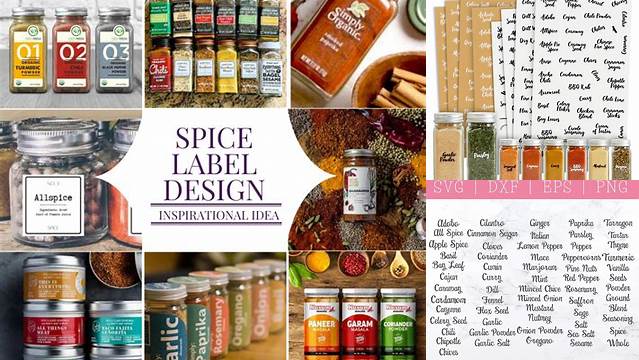
Spice Label Fonts: A Comprehensive Guide
Spice labels aren't just about listing ingredients; they're a crucial part of your brand's identity and can significantly impact sales. The right font can instantly convey your brand's personality, whether it's a rustic, artisanal feel or a modern, minimalist aesthetic. Choosing the best fonts for spice labels involves considering legibility, style, and the overall message you want to communicate. This guide will walk you through the essential aspects of font selection, ensuring your spice labels not only look good but also effectively attract customers and tell your brand's story.
1. Understanding the Role of Typography in Spice Label Design
Guys, let's talk about the unsung hero of great spice labels: typography. It's not just about picking a pretty font; it's about crafting a visual identity that speaks volumes. Think of typography as the voice of your brand. Are you aiming for a classic, home-cooked vibe? A serif font like Garamond or Times New Roman might do the trick. Going for something modern and edgy? A sans-serif font like Helvetica or Futura could be your go-to. Understanding the role of typography is the first step in making your spice labels pop. It's about creating a cohesive design that grabs attention and makes your product stand out on the shelf. Best fonts for spice labels often balance aesthetic appeal with practicality. Legibility is key. No one wants to squint to read what's in the jar. The right font ensures that your brand is accessible and inviting, turning casual browsers into loyal customers. Consider the overall feel you want to evoke. The typeface of your label, the style of your texts should complement the look and feel of your business. The fonts you choose should reflect your brand's story, creating a lasting impression that resonates with your target audience. Remember, a well-chosen font can communicate your brand values and build a strong connection with your customers.
1.1. The Importance of Legibility and Readability
Let's be real, nobody has time to struggle to read a spice label, right? That's why legibility and readability are absolute must-haves when choosing the best fonts for spice labels. Legibility refers to how easy individual characters are to recognize, while readability is about how easily blocks of text can be read. A font might look beautiful, but if it's hard to read, it's a no-go. Focus on fonts that offer clear character shapes, avoiding overly ornate or stylized fonts for body text. Consider the size of the font and the distance at which the label will be viewed. For example, labels on smaller jars might require bolder fonts to ensure readability. Test out your font choices! Print out sample labels and see how they look under different lighting conditions and from various distances. This hands-on approach will help you assess legibility in real-world scenarios. Also, remember that readability can be affected by factors like font size, line spacing, and color contrast. Ensure there's enough contrast between the font and the background. Black text on a white background generally offers the highest readability. Experiment with different font weights (light, regular, bold) to find the perfect balance. Bold fonts are great for headings and key information, while regular or light fonts work well for body text. Prioritize fonts that are both stylish and easy to read. The ultimate goal is to provide clear and concise information that encourages customers to purchase your product.
1.2. Balancing Aesthetics and Functionality in Font Selection
When selecting the best fonts for spice labels, it's a delicate balancing act between aesthetics and functionality. You want a font that looks good and reflects your brand's personality. However, this must be achieved without sacrificing the clarity and usability of the label. Think about the overall design of your label. A playful, handwritten font might work well for a brand selling artisanal spices, while a clean, modern sans-serif font might suit a more contemporary aesthetic. Consider the target audience of your spices. A font that appeals to health-conscious consumers might differ from a font that appeals to gourmet food enthusiasts. Evaluate how the font performs in various contexts. Does it maintain its legibility at smaller sizes? Does it work well with other design elements like images and colors? It's crucial to avoid fonts that are too elaborate or complex, as these can be difficult to read, especially in small font sizes. Focus on fonts with clean lines and distinct characters. This ensures readability, no matter the size or distance from which the label is viewed. Remember, the font should support the overall design, not overpower it. The best fonts for spice labels are those that complement the brand's identity, communicating its message in a way that is both visually appealing and highly functional. A well-chosen font reflects your brand's personality, making your product more attractive and memorable.
2. Top Font Styles for Spice Labels
Selecting the best fonts for spice labels involves a careful consideration of various font styles. Each style conveys a unique message and can influence how customers perceive your brand. Let's dive into some popular font styles suitable for spice labels.
2.1. Serif Fonts: Classic and Trustworthy Choices
Serif fonts are fonts with small decorative strokes at the end of each letter. They are known for their classic and traditional feel, making them a popular choice for brands aiming to convey trust and reliability. Examples include Times New Roman, Garamond, and Georgia. These fonts can bring a touch of elegance and sophistication to your spice labels. Best fonts for spice labels in the serif category often evoke a sense of history and tradition. They are perfect for brands that emphasize quality and heritage, attracting customers who appreciate classic designs. Serif fonts often work well for the main text on your labels. They are typically easy to read, especially in longer blocks of text. This is crucial for providing detailed information about the spices, such as ingredients and usage instructions. The serifs themselves help guide the eye across the page. This enhances readability and ensures that your message is easily understood. However, avoid overly decorative serif fonts if legibility is a primary concern. Simpler, cleaner serif fonts are usually the best choice. In addition, consider pairing a serif font with a sans-serif font for headings or subheadings. This creates visual interest and hierarchy. The serif fonts offer a balanced and professional look, making them ideal for brands looking to build trust and credibility. The right serif font can create a strong connection with customers who value quality and tradition, which translates into increased customer loyalty and sales.
2.2. Sans-Serif Fonts: Modern and Clean Designs
Sans-serif fonts are fonts without the small decorative strokes found in serif fonts. They offer a modern, clean, and minimalist aesthetic. They are perfect for brands seeking a contemporary look. Popular choices include Helvetica, Arial, and Futura. These fonts project a sense of simplicity and professionalism. Best fonts for spice labels that embrace sans-serif styles often aim to appear clean and approachable, which resonates with consumers seeking straightforward and clear product information. Sans-serif fonts are highly versatile, making them suitable for a wide range of brands. They're excellent for headings, subheadings, and any text that needs to stand out. Their clean lines ensure excellent readability, even at smaller sizes. This is particularly important for spice labels where space may be limited. Consider using bold or semi-bold sans-serif fonts for ingredient lists. This helps draw attention to the most important information. The simplicity of sans-serif fonts makes them ideal for minimalist designs. They allow other design elements, such as colors and images, to shine. However, ensure your sans-serif choice is not overly plain. This can make your brand seem generic. Choose a font with a unique character that reflects your brand's personality. By leveraging the strengths of these fonts, spice labels can communicate professionalism and modernity. They appeal to customers who value a clean and straightforward design. This leads to higher brand visibility and increased sales.
2.3. Script Fonts: Adding a Touch of Elegance and Personality
Script fonts mimic handwriting and are a great way to inject personality and elegance into your spice labels. These fonts add a touch of sophistication and can make your products feel more artisanal and high-end. Popular options include Brush Script and Lobster. If your brand embraces an artistic or handcrafted identity, script fonts can be a fantastic choice. Best fonts for spice labels that employ script styles often aim to create an intimate, personal connection with customers. This makes them ideal for brands that prioritize storytelling and authenticity. Use script fonts sparingly. They work best for titles, product names, or taglines. Avoid using them for body text, as they can be difficult to read in large blocks. Ensure legibility by choosing a script font with clear letterforms. This will ensure that your customers don't struggle to read the information. Keep in mind that script fonts can be visually striking. They may not always pair well with other font styles, especially if the contrast is too strong. Consider pairing a script font with a simple, clean sans-serif font for a balanced design. Furthermore, choose the right script font that resonates with your brand's identity. A delicate script font might suit a brand specializing in gourmet spices, while a bolder script font could suit a brand offering unique blends. Script fonts can elevate your brand, setting you apart from the competition. They make your labels more memorable and appealing to customers who are looking for quality and style.
2.4. Display Fonts: Bold Statements and Creative Designs
Display fonts are designed to grab attention and are ideal for making a bold statement on your spice labels. They often have unique and eye-catching designs, setting your product apart from the competition. Examples include Bebas Neue and Impact. Display fonts can add a creative flair to your labels and make your brand memorable. Best fonts for spice labels that utilize display fonts aim to create a strong visual impact. They are particularly effective for brands looking to showcase personality and creativity. However, use display fonts strategically. They are best suited for short, impactful text, such as brand names, product names, or key ingredients. Display fonts might not be suitable for body text or long descriptions, as they can be difficult to read in extended paragraphs. Choose a display font that aligns with your brand's overall aesthetic. If your brand is playful and fun, a bold and whimsical font might work well. If you want a more serious and sophisticated vibe, go for a more elegant display font. Make sure the display font you select is legible. You should ensure that the font is easy to read at different sizes and viewing distances. When used correctly, display fonts can enhance your spice labels, creating a strong visual identity. This will attract customers and highlight your brand's unique personality. The font adds a creative and visually appealing aspect to your labels, enhancing your product's overall appeal and increasing its appeal to the target audience.
3. Font Combinations: Creating a Harmonious Design
Mixing and matching fonts can create a visually appealing and dynamic design for your spice labels. The key is to find the right balance and ensure that the fonts complement each other. Proper font pairings will create a cohesive and readable label. Let's get into it. Best fonts for spice labels are often a mix of different font families. They provide visual interest and reinforce your brand's identity.
3.1. Pairing Serif and Sans-Serif Fonts
Combining serif and sans-serif fonts is a classic and versatile approach to label design. This pairing offers a balance of tradition and modernity. This combo is a safe bet for achieving a professional and readable label. Choose a serif font for headings and a sans-serif for body text, or vice versa. The contrast between the two font styles adds visual interest and guides the reader's eye. For example, use a bold serif font like Playfair Display for the brand name and a clean sans-serif font like Open Sans for the ingredient list. This will create a clear visual hierarchy and make your label easy to read. Consider the characteristics of each font. Ensure they complement each other in terms of weight, style, and overall tone. The ideal choice is one where the font enhances the message without clashing. Best fonts for spice labels often achieve this balance by selecting fonts with similar x-heights or consistent design elements. This helps to ensure harmony between the different font styles. Another tip is to limit the number of fonts on your label to two or three. Overusing different fonts can lead to a cluttered and confusing design. Focus on creating a clear and concise message that will resonate with your target audience. A well-executed combination of serif and sans-serif fonts will make your spice labels both aesthetically pleasing and highly functional.
3.2. Utilizing Different Weights and Styles of the Same Font Family
Using different weights and styles within the same font family is an excellent way to create visual interest while maintaining a cohesive design. By using different weights (light, regular, bold) and styles (italic, condensed), you can emphasize certain information and guide the reader's eye. This also helps achieve a professional and streamlined appearance. This technique is an excellent choice for the best fonts for spice labels. For example, you could use a bold weight for headings and a regular weight for body text within a single font family like Montserrat. This approach creates a clear hierarchy. Also, it ensures that the label is easy to read and understand. The advantage of this technique is that the font family is a great tool for providing consistency across your label's design. This can help strengthen your brand's identity. You can create different levels of emphasis without the risk of conflicting styles. Remember, it's important to choose a font family with a good range of weights and styles. Consider how each weight and style will appear on the label. Different weights and styles should also contribute to a clear visual hierarchy, making it easier for customers to navigate the information. Always prioritize readability. A well-executed use of varying weights and styles within the same font family will result in a well-organized, visually appealing, and highly functional spice label.
3.3. Contrasting Font Styles for Emphasis
Contrasting font styles can add a dynamic element to your spice labels. By pairing fonts with different characteristics, you can create visual interest and guide the reader's attention to key information. This is important for highlighting important details and making your label stand out. When selecting the best fonts for spice labels, make sure your fonts have significant differences in terms of style, weight, and size. For example, you could pair a bold, modern sans-serif font for the product name with a more delicate script font for the description. This contrast helps to draw the eye and creates a clear visual hierarchy. To make sure the label doesn't look cluttered, use contrasting fonts for different elements on the label, such as headings and body text. Avoid pairing fonts that are too similar, as this can create confusion and make the label difficult to read. Prioritize readability by ensuring that the fonts you choose are clear and legible at different sizes. Moreover, make sure your fonts are also aligned with your brand's personality and overall design aesthetic. This technique can create a visually engaging and effective label. It also provides a way to emphasize key information. This way your label stands out and resonates with your target audience.
4. Practical Tips for Font Selection
Choosing the right fonts for your spice labels is a combination of artistic vision and practical considerations. The details you choose can shape the success of your product. Here's some practical advice for making the best decisions. Best fonts for spice labels are not just aesthetically pleasing. They also serve a practical purpose. Consider these important factors when selecting fonts for your spice labels.
4.1. Prioritizing Readability in Small Sizes
Readability is paramount. This becomes even more critical when it comes to spice labels. They are often small. It's a vital aspect of choosing the best fonts for spice labels. Test your chosen fonts at the actual size they will appear on your labels. This ensures that all text remains easy to read. Some fonts look great in large sizes but become unreadable when shrunk. Look for fonts with clear, distinct letterforms. Avoid overly ornate or thin fonts that can become illegible at small sizes. Consider the font's x-height. A larger x-height (the height of the lowercase 'x') can improve readability. Consider this if you want to increase the legibility of your text. Ensure there is sufficient spacing between letters and lines. This prevents the text from appearing cramped and difficult to read. Think about the target audience. Older consumers may need larger font sizes. Use a font that maintains its legibility across a variety of backgrounds. A font may appear different when printed on light or dark backgrounds. By prioritizing readability, you guarantee that your labels are easily accessible. This will attract customers and effectively communicate essential product information.
4.2. Testing Fonts on Sample Labels
Before committing to a font, it's crucial to test it out on sample labels. This step is often overlooked but is a valuable part of finding the best fonts for spice labels. Print out test labels with your chosen font and other design elements. Then, evaluate how the font looks in real-world conditions. Print the labels on the same material and use the same printing process you plan to use for your final product. This will give you the most accurate representation of how the font will appear. Pay attention to how well the font renders at different sizes. Ensure that the text remains clear and legible, even in small font sizes. Consider the background of your label. Experiment with different colors and backgrounds to see how the font contrasts and reads. Get feedback from others. Have friends, family, or potential customers review your sample labels. This will provide valuable insights into the font's legibility and appeal. Test under various lighting conditions. Check how the font appears in both natural and artificial light. Evaluate the overall design. Make sure the font complements the other design elements. A well-designed spice label can make or break your product's appeal. Comprehensive testing helps you to avoid costly mistakes and guarantees that your labels are both attractive and effective.
4.3. Considering Printing Methods and Materials
Printing methods and materials play a critical role in the final appearance and legibility of your spice labels. They will affect the best fonts for spice labels. The printing method can influence the detail and clarity of the text, particularly with smaller fonts. For example, a high-resolution printing method like digital printing is ideal for detailed labels. It allows for the use of intricate fonts and small text sizes. If you are using a more traditional method, consider the ink and its interaction with the paper. The material also plays a crucial role. Matte labels tend to absorb light, which can soften the appearance of the text. Glossy labels reflect light. This can increase legibility, especially if the font is dark and bold. Choose materials that are durable and suitable for the environment in which the spices will be stored. Consider the types of labels you use. If your labels are exposed to moisture or oils, ensure that the ink does not smudge. Make sure the materials you choose are a good match for your font. Test different printing methods and materials with your chosen font. This helps to make sure that the final product aligns with the quality of your brand. Selecting the correct printing methods and materials ensures your spice labels are attractive. They also make them functional and long-lasting.
5. Free vs. Paid Fonts: Making the Right Choice
When selecting fonts for your spice labels, you have two main options: free fonts and paid fonts. Both options have pros and cons. Choosing the right one depends on your budget, the specific requirements of your design, and the legal aspects of font usage. Understanding the advantages and disadvantages of both will help you to make an informed decision about what makes the best fonts for spice labels.
5.1. Advantages of Using Free Fonts
Free fonts are an attractive option, particularly for startups or businesses with a tight budget. Here's what makes them great. Accessibility is one of the biggest advantages. You can access a wide variety of free fonts from various online sources. Popular sites, such as Google Fonts, offer a wide selection of fonts. This makes them a great choice for spice label projects. The cost is a significant factor. You can use free fonts without any licensing fees, which reduces the overall cost of your design projects. Also, they're great for personal use. Most free fonts can be used for both personal and commercial projects. This gives you a lot of flexibility in how you use them. Free fonts are also easy to install and use. You can download the font files and install them on your computer. Then they become available for use in your design software. Keep in mind that it's very important to verify the licensing terms of a free font. Always be sure you are allowed to use the font for commercial purposes. Also, make sure the font is a good choice. Check for legibility and design quality. Free fonts can be a great starting point. Make sure you check their licensing terms and design quality.
5.2. Benefits of Investing in Paid Fonts
Investing in paid fonts can offer several advantages, especially if you're looking to create a professional and unique brand identity. This can make all the difference in finding the best fonts for spice labels. Paid fonts usually come with high-quality design and craftsmanship. The fonts are designed with care and attention to detail. This makes them a great choice for creating a professional look. You get more options and variations when using a paid font. Paid fonts often include a wider range of weights, styles, and special characters. This makes the font versatile for various design applications. This includes variations, weights, and special characters. Paid fonts come with commercial licenses. This can be the best guarantee for usage. You have full legal protection. Many paid fonts also offer superior legibility. This ensures a better user experience on your labels. Paid fonts provide access to better customer support and updates. This makes your label stand out from the competition. If you're serious about branding and creating a polished look, then paid fonts are often worth the investment.
5.3. Licensing and Usage Rights: Staying Compliant
Understanding font licensing and usage rights is crucial to avoiding legal issues and ensuring that you're using fonts correctly. This is an important aspect of choosing the best fonts for spice labels. Different font licenses grant different rights. So make sure you choose the right license for your needs. When you download a font, always read the licensing agreement. This will explain the terms of use. Some fonts are free for personal use but require a paid license for commercial projects. Check the license carefully to ensure you're allowed to use the font on your spice labels. Consider the scope of your usage. Do you need to use the font on packaging, marketing materials, and your website? Make sure your license covers all the intended uses. Some licenses may have restrictions on the number of products you can sell. Be certain you are using fonts compliant with any applicable regulations. This includes trademarks. Make sure the font you choose does not infringe on any existing trademarks. If you are unsure about the licensing terms, it is best to consult with a legal professional. Following licensing and usage rights is not only important. It can also help you avoid legal issues and ensure that your spice labels are compliant with all applicable regulations.
6. Design Examples and Inspiration
Looking at examples of well-designed spice labels can provide valuable inspiration and guidance for your own project. This will help you in finding the best fonts for spice labels. Studying successful designs can offer ideas on how to combine fonts, use color, and create a cohesive brand identity. Here are some inspirational examples for you to consider.
6.1. Analyzing Successful Spice Label Designs
Let's break down some spice label designs that excel in both aesthetics and functionality. Analyze how these designs are structured, focusing on font selection, color palettes, and overall layout. This will bring you closer to finding the best fonts for spice labels. Many spice labels have a clear visual hierarchy. This makes the label easy to understand. The best designs place the brand name or logo in a prominent position. This helps to establish brand recognition. The best spice labels use high-quality product photography or illustrations. This attracts customers and makes the product appealing. Study the typography. Note how different fonts are used for the brand name, product name, and ingredient lists. Note how the different fonts complement each other and create a cohesive design. Study how colors are used to enhance the design. Also, study how they can communicate your brand's message. Consider how the label is organized. Are there any special design elements? Study how the label's design is appealing and practical. Consider how these elements can inform your own design choices. Analyze the materials of each label. Understand how this will affect the overall look and feel of your product. By dissecting successful examples, you can glean valuable ideas and principles that will help you to design an effective label.
6.2. Showcasing Different Font Combinations in Action
Explore the world of font pairings and discover how different combinations can create a visual impact. The best designs will showcase different font combinations, providing concrete examples of how they are employed in real-world spice label designs. Best fonts for spice labels are always an integral part of great design. Example: Using a bold, modern sans-serif font like Montserrat for the brand name. Then, pairing it with a more elegant serif font like Playfair Display for the product name. Another example is, using a handwritten script font for the product name. Combine this with a clean sans-serif font like Open Sans for the ingredients. Examine how these combinations influence the design's overall tone. Also, notice how the fonts complement each other. Look at how the chosen fonts contribute to the brand's personality and message. The design will highlight the effective use of font pairings. It will guide designers in making informed decisions. It will help them to enhance their spice labels. Different font pairings will create unique designs and attract customers.
6.3. Drawing Inspiration from Industry Trends and Competitors
Staying informed about industry trends and competitor designs can fuel your creative process and help you make informed decisions. This can help you to find the best fonts for spice labels. To get started, study what your competitors are doing. Analyze their label designs to get ideas. Research current trends in design and typography. This will inform your choices. Create a mood board with images and designs. This will inspire your creativity. Collect any design elements. Be sure to compile them for future reference. Use these inspirations to create unique and appealing labels. By following industry trends and competitor analysis, you can gain insight into what works. By adapting your designs, you can set your brand apart and attract more customers.
7. Tools and Resources for Font Selection
Selecting the right fonts for your spice labels can be simplified with the right tools and resources. Access to the best tools can help you in finding the best fonts for spice labels. Let's explore the different tools and resources you can use to refine your font choices.
7.1. Websites for Font Discovery and Pairing
Many websites offer extensive resources for finding and pairing fonts. These websites are great resources for finding the best fonts for spice labels. Websites like Google Fonts provide a vast library of free fonts that you can use. Also, they're perfect for finding the perfect font to match your brand. These websites offer font pairing tools. They suggest combinations that complement each other well. This will save you time and help in creating harmonious designs. Websites like FontPair provide curated font pairings. This simplifies the process of choosing the correct fonts. These websites also offer valuable design inspiration. These resources provide insight into the use of various fonts in a wide range of applications. This allows you to explore various design options and implement them in your project. These websites are essential tools. By using them, you can explore different design options. They help you find and pair fonts effectively.
7.2. Font Management Software: Organizing Your Library
Managing your font library can become overwhelming. This is when font management software comes to the rescue. These applications can help you organize, manage, and preview your fonts. Font management software enhances efficiency. This will help you in choosing the best fonts for spice labels. These software programs allow you to categorize fonts based on different criteria. This includes style or usage. These features make it easier to locate the font you need. The software helps you to preview your fonts. Preview your fonts in a variety of contexts. Many tools offer quick access to font pairing tools. This feature lets you easily combine different fonts to enhance your labels. Font management tools help organize and enhance productivity. It can help you in managing your font library. This tool is essential for designers. It simplifies the process of finding the perfect font.
7.3. Design Software Features for Typography
Design software is a powerful tool for creating your spice labels. They come with built-in features that can help you with font selection and typography. The design software is a great tool for finding the best fonts for spice labels. Most design software programs offer a wide range of fonts for use. It will help you with your label designs. These programs offer options to customize font settings and create specific effects. These will help in the process. Design software also helps you with a visual preview. The features allow you to see how fonts will appear in a label design. The design software also offers font pairing tools. This simplifies the selection process by suggesting font combinations. Design software is an essential tool. It helps designers in creating visually appealing and functional spice labels. Use it to enhance your design. Enhance your designs by using different design elements.
8. Avoiding Common Font Mistakes
Making mistakes in font selection can lead to unattractive and ineffective spice labels. Understanding and avoiding common font mistakes is crucial for designing labels that are both visually appealing and functional. It will help you in finding the best fonts for spice labels.
8.1. Overusing Fonts: Keeping It Simple
One of the most common mistakes is using too many fonts on a single label. This can result in a cluttered and confusing design. Aim to use a maximum of two or three fonts. Use one for headings and another for body text. Use this to create a visually cohesive design. The use of too many fonts can confuse customers. This can undermine your brand's message. By using fewer fonts, you create a streamlined and professional look. This allows for a better visual hierarchy, making your labels easier to read and understand. Keep the use of font variations simple. A good rule is to pick a single font family and use different weights and styles. A more straightforward design ensures that the label communicates your message clearly. It also reflects your brand's identity effectively.
8.2. Choosing Fonts That Are Difficult to Read
Poor readability is a major drawback when it comes to font selection. This can have a significant negative impact on the effectiveness of your spice labels. Selecting fonts that are difficult to read diminishes the value of your product. It prevents customers from quickly understanding your brand. Legibility is particularly important on spice labels. They are often small and have limited space for information. Choose fonts with clear, distinct letterforms and ensure adequate spacing between letters. Also, choose between different styles. Choose the font that suits the target audience. Always test your fonts. Make sure you can see what they look like on different backgrounds. This is another important step. This will ensure that the text is visible and understandable. High readability is essential. It ensures that your spice labels are both appealing and effective.
8.3. Ignoring Font Licensing and Usage Rights
Ignoring font licensing can lead to legal and financial complications. This is an avoidable pitfall in the design process. Thoroughly familiarize yourself with the licensing terms of any font you use. This will ensure your compliance. Always check the license for restrictions. Some fonts are free for personal use only. Some fonts are also subject to usage restrictions. If you plan to use a font commercially, make sure your license permits this. Avoid using fonts that are protected by trademarks. Infringing on trademarks can lead to legal action. Save yourself from the complications that can arise from improper font usage. If you're not sure about the license's limitations, seek the advice of a legal professional. Taking extra care to comply with licensing terms safeguards your brand's image. Also, it helps prevent any legal issues. Adhering to these guidelines will guarantee the safe and legitimate use of the font and avoid any unnecessary problems.
9. The Future of Typography in Spice Labeling
As design trends evolve, the role of typography in spice labeling continues to transform. Keeping up with these changes is essential for staying relevant and engaging your audience. The future of typography in spice labeling holds some intriguing possibilities. The best fonts for spice labels are always evolving.
9.1. Emerging Trends in Font Design and Label Aesthetics
Explore the trends. Staying informed about emerging trends in font design and label aesthetics is essential for designing modern and appealing spice labels. New trends can make your label design more effective. Modern design is leaning towards minimalist designs. This involves the use of clean, uncluttered layouts and simple fonts. Think about using modern fonts, sans-serif fonts, or streamlined serifs. Consider the use of variable fonts. This allows for more flexibility in font weights and styles. This results in eye-catching typography. The use of vintage styles is also popular. Using vintage fonts and designs will help. Incorporate retro designs to create unique packaging. The use of interactive design is becoming increasingly popular. It lets designers build their designs around the needs of the consumers. This will help you in keeping up with the industry.
9.2. Integrating Technology and Digital Typography
Integrating technology and digital typography is changing the way spice labels are designed and perceived. This can change the best fonts for spice labels. Digital typography has been an important element in spice labeling. Using variable fonts and animated text elements can create visual dynamics. You can even use interactive and customizable labels that let customers adjust information to their preference. Also, you can use QR codes to incorporate interactive elements into the design. Augmented reality (AR) technology can enhance a customer's shopping experience. Use AR to make your product stand out. Think about including your logo and product features. Consider the customer experience as well. Design your labels using this information. Consider how technology can transform your products. Create memorable and engaging designs by taking advantage of these technologies.
9.3. The Role of Sustainability and Ethical Design
Sustainability and ethical design have become more important in the design of spice labels. These factors have a significant impact on consumer preferences. Your font selection can complement these sustainable practices. Focus on designs. Try eco-friendly and sustainable fonts to create environmentally conscious products. Choose fonts that are easy to read. Ensure that the design is easy on the environment. Choose fonts that highlight a commitment to ethical and sustainable practices. This can lead to greater brand loyalty. Consumers appreciate brands that are aligned with their values. This is what sets your brand apart. The best spice labels will reflect values. This will include sustainability and ethical practices. It will enhance your brand's appeal. It will also create a strong connection with your customer.